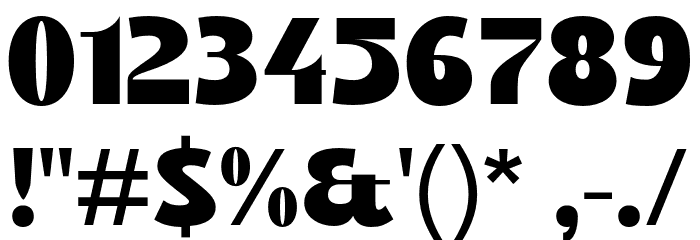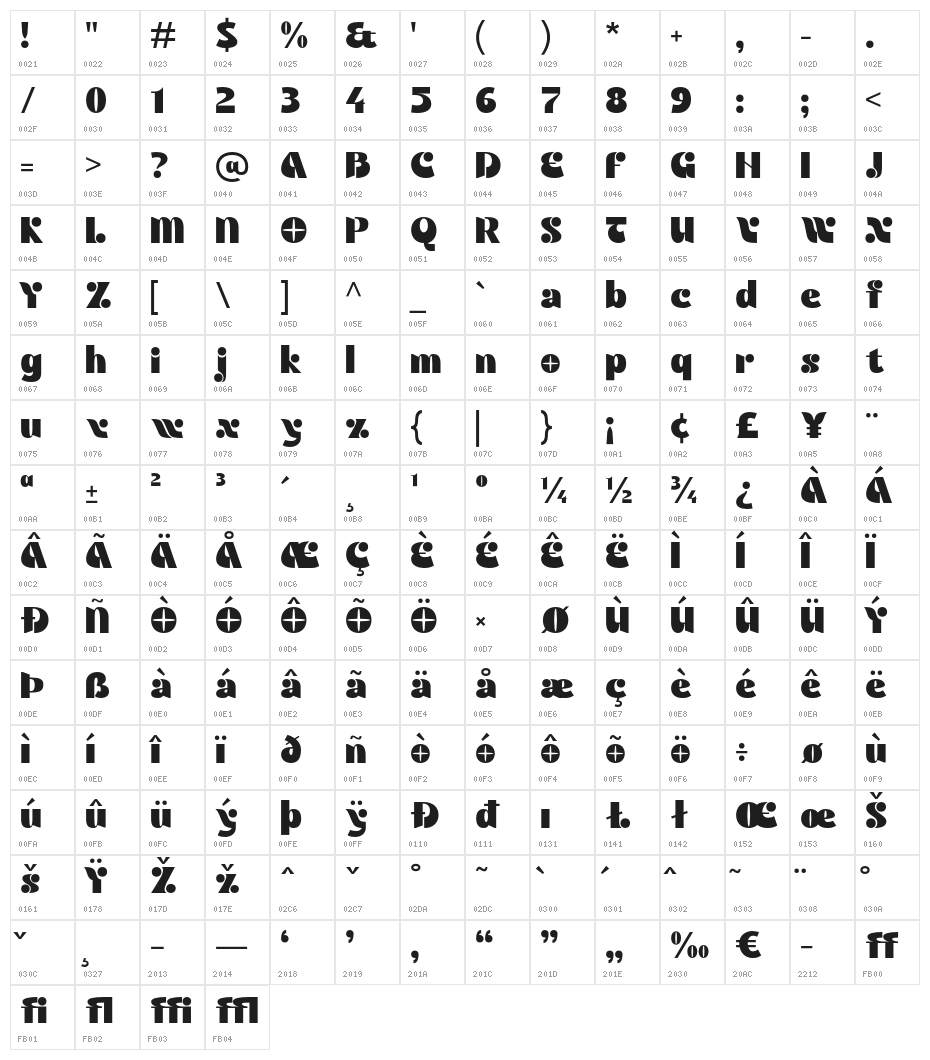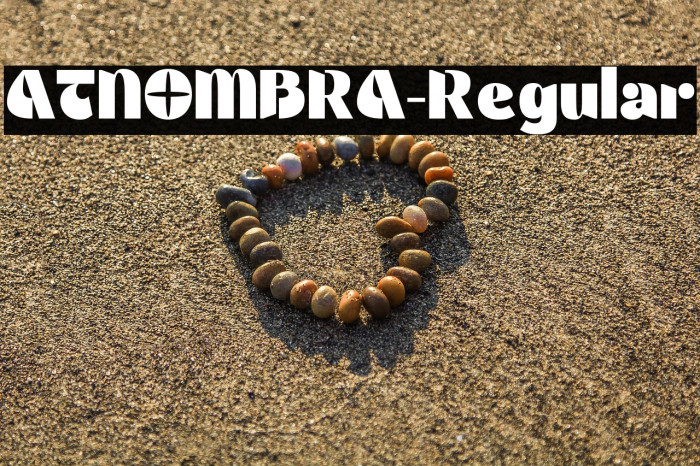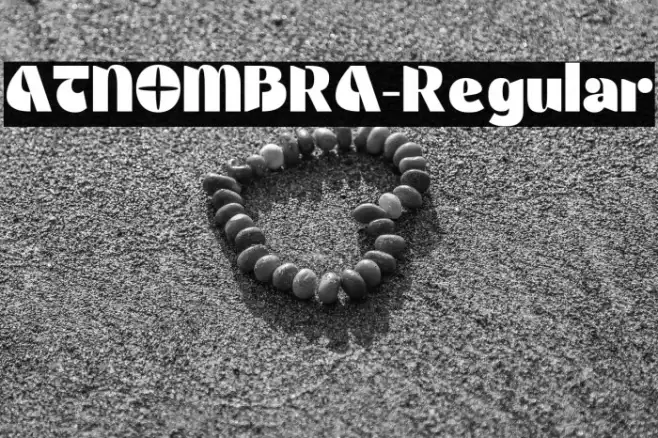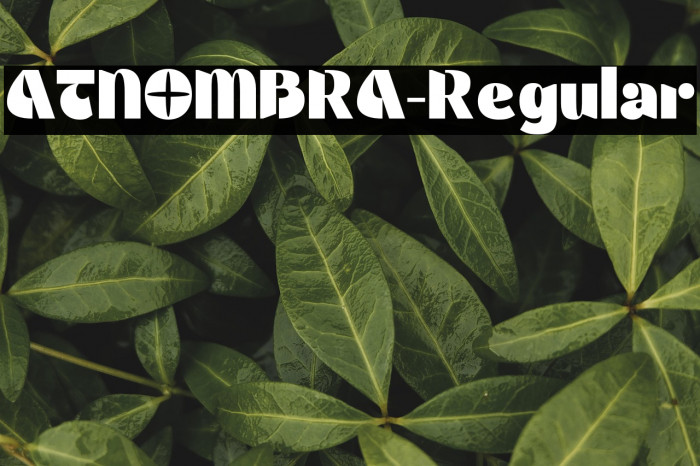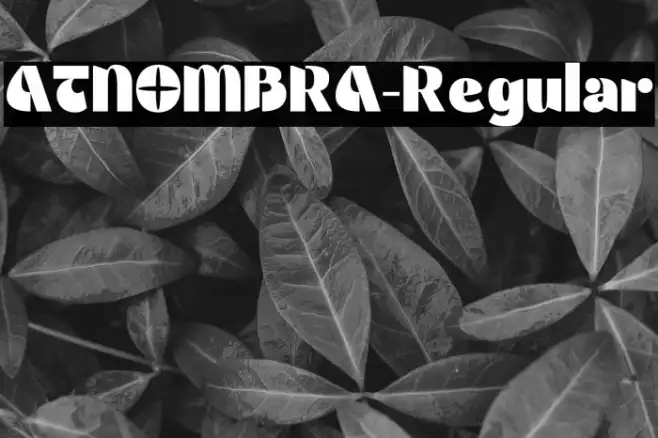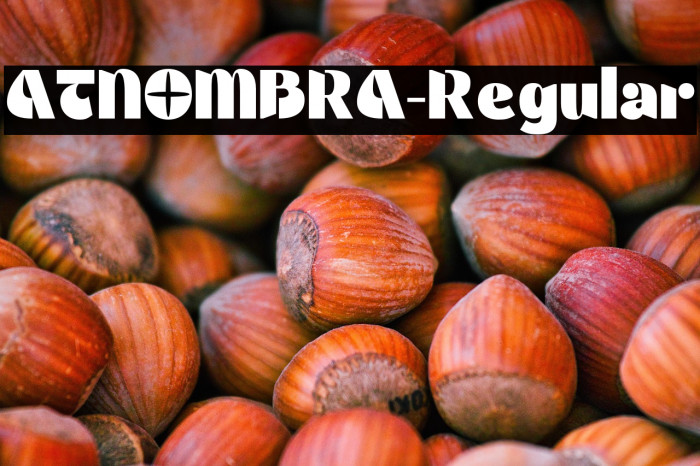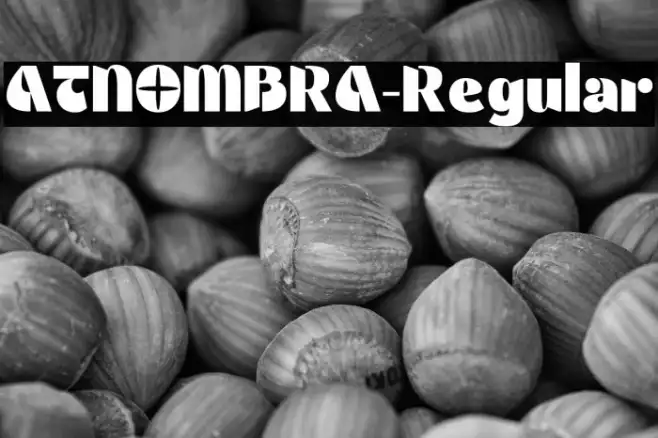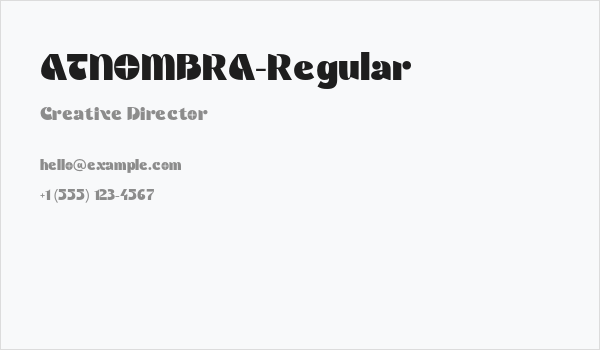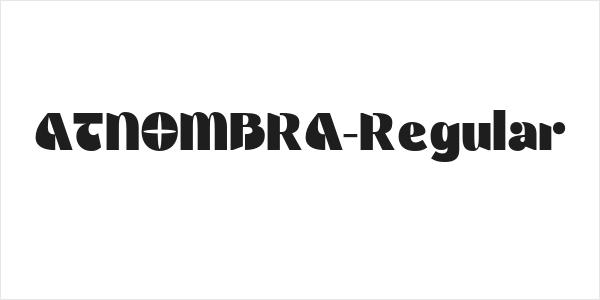
ATNOMBRA-Regular Font
ATNOMBRA-Regular Description
This font features a bold and striking design with a unique geometric style. The characters are crafted with a combination of thick and thin strokes, creating a high contrast that draws attention. The uppercase letters have a strong presence with rounded edges and distinct shapes, while the lowercase letters maintain a similar boldness with a slightly softer appearance. The numbers and special characters are equally bold, ensuring consistency throughout the typeface. Its decorative elements make it suitable for eye-catching designs.
| Proposed Projects | Ideal for branding, poster design, headlines, and any project requiring a strong visual impact. |